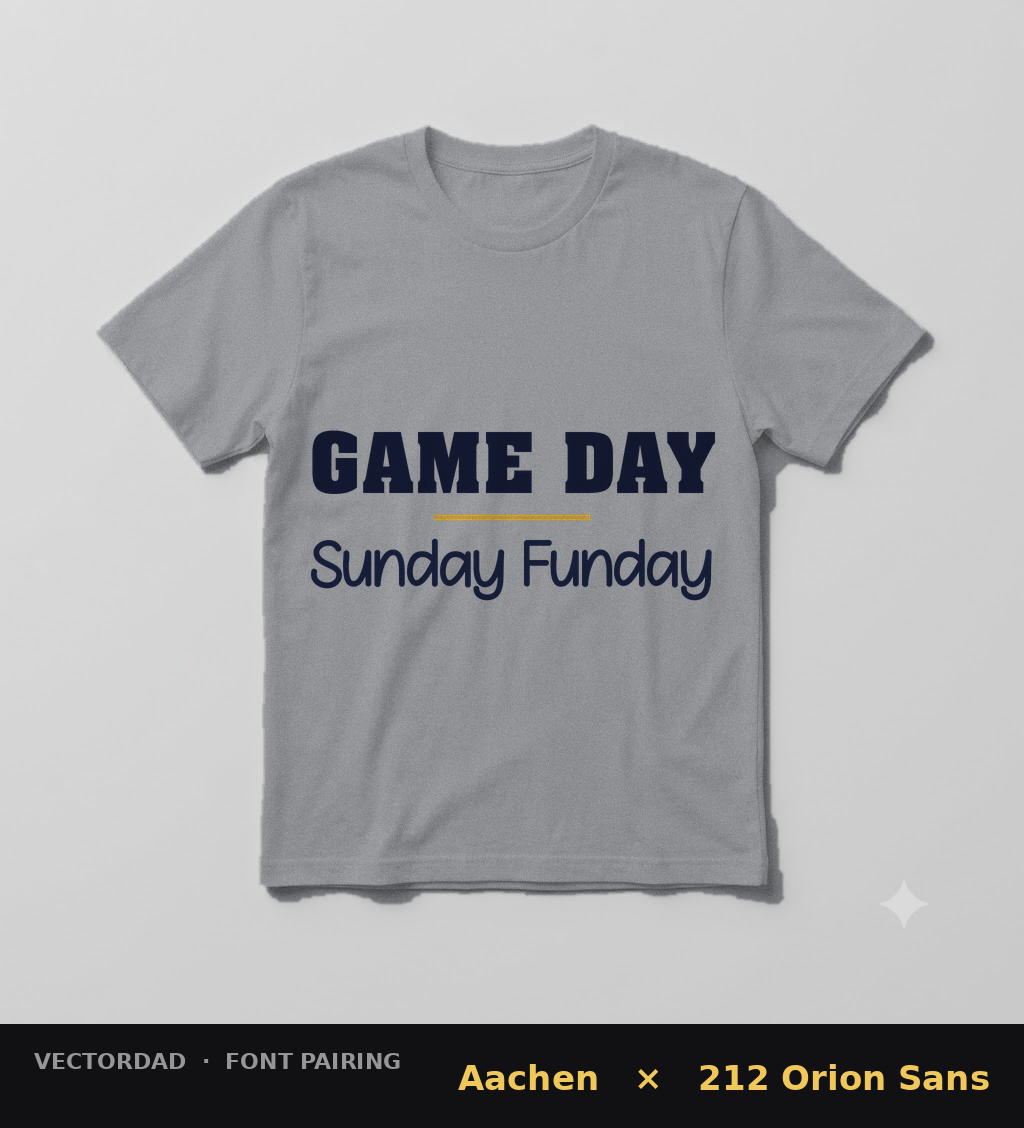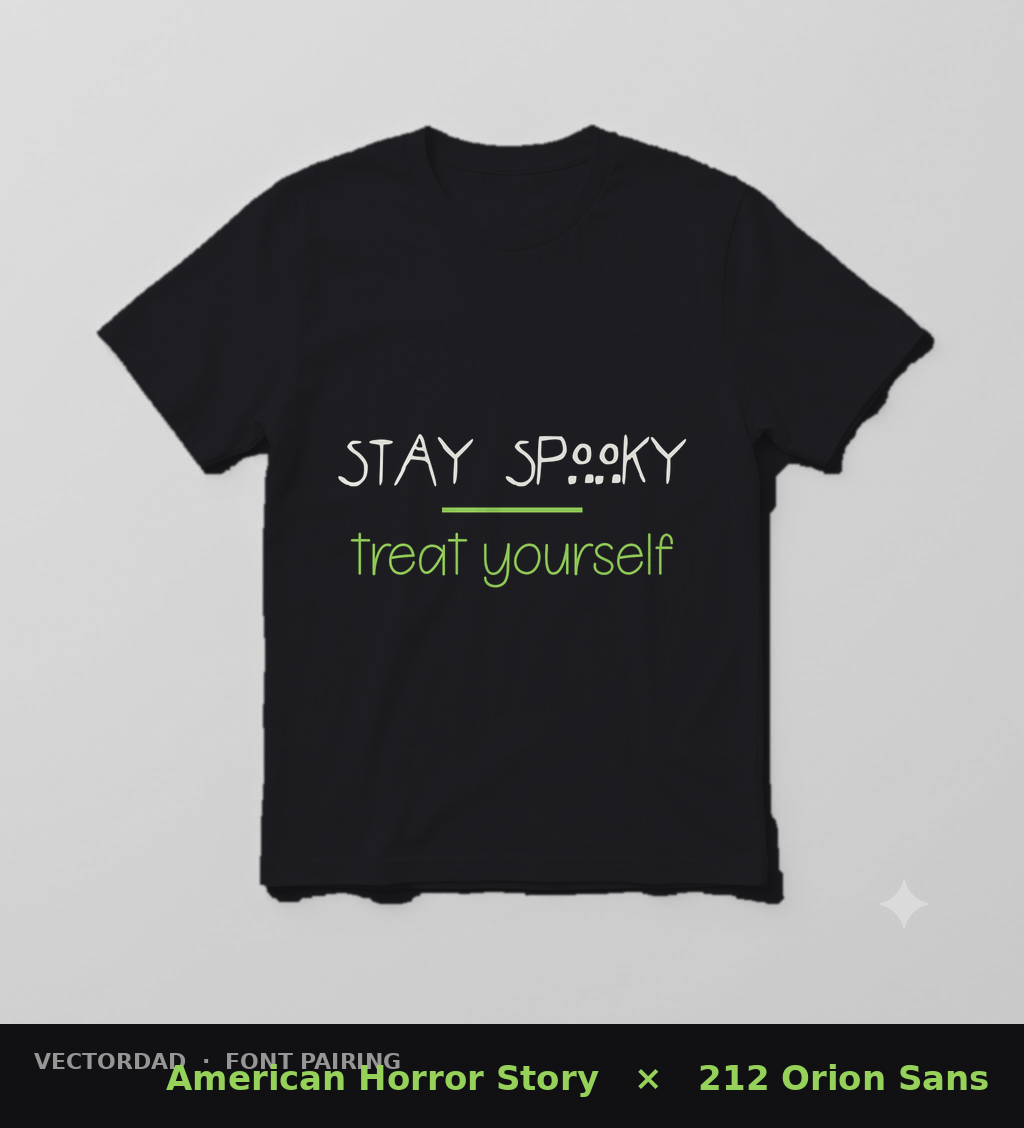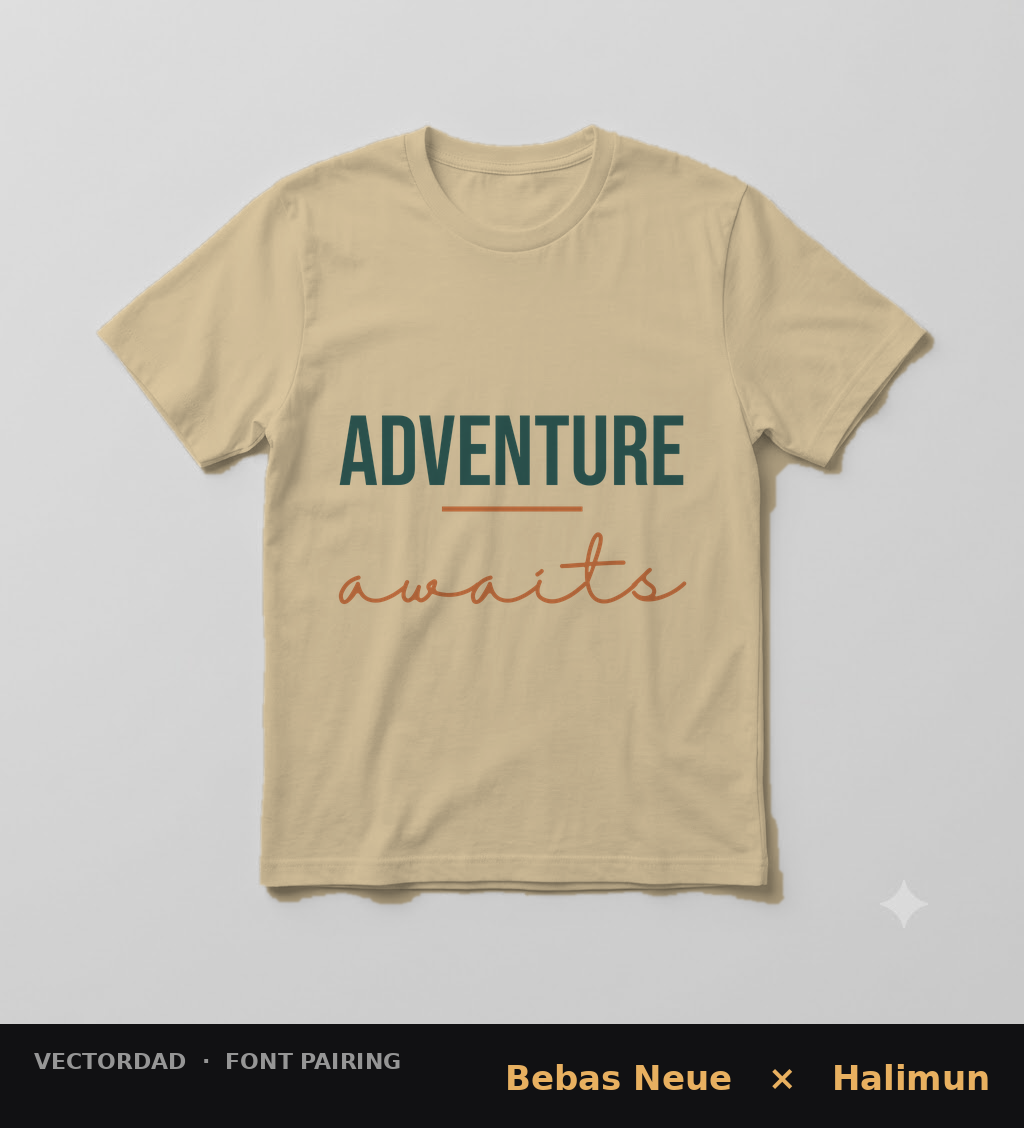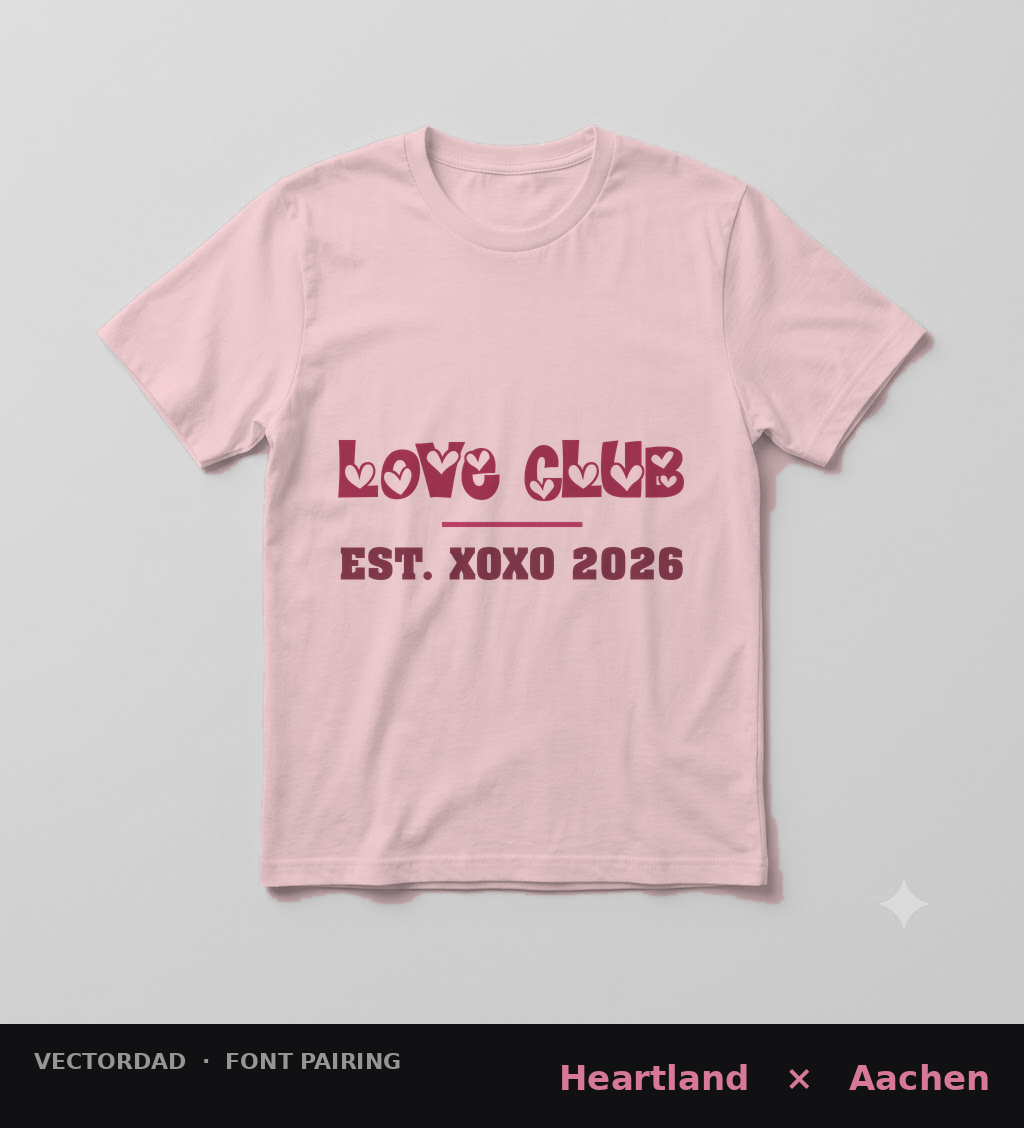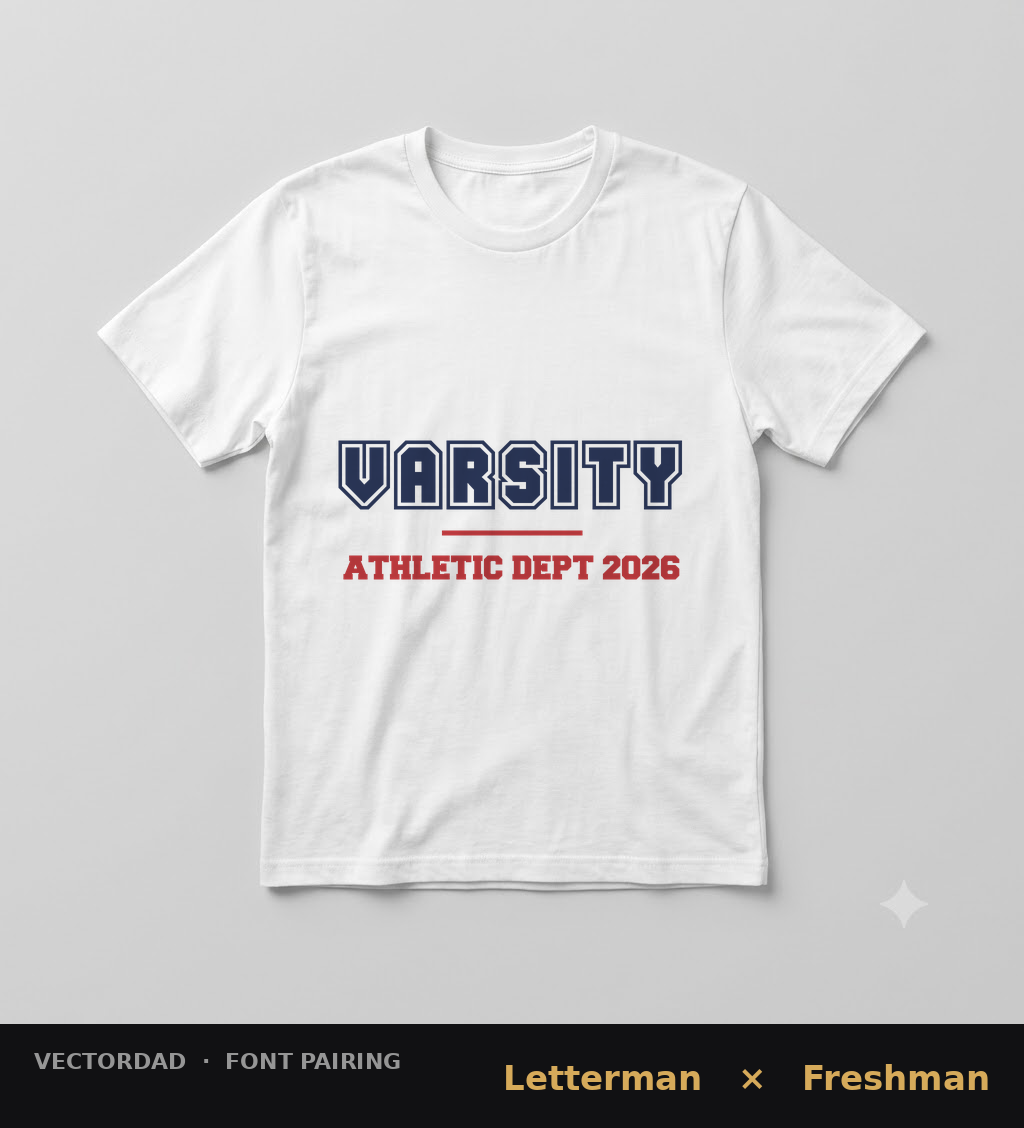
10 Font Pairings for T-Shirts That Sell featured graphic with realistic t-shirt mockups
10 Font Pairings for T-Shirts That Sell (Free Cricut Fonts)
The right shirt design lives or dies on its lettering. A clever slogan set in a clumsy font gets scrolled right past; the same words in a confident type pairing stop the thumb and sell the shirt. That is the whole game with t-shirt design – you are usually working with just two or three words, so the fonts have to do almost all of the heavy lifting.
Font pairing is simply the craft of combining two complementary typefaces so each one does a job the other cannot. On a tee that almost always means one bold display font to carry the headline and one cleaner, quieter font for the supporting line. Get that contrast right and even a plain phrase looks like it came off a boutique rack. Below are five pairings – every one built from free fonts you can download here on VectorDad – with the actual fonts rendered onto shirt mockups so you can see exactly what you are getting before you download a thing.
How to Pair Fonts for T-Shirts: 4 Quick Principles
Before the examples, here are the rules that make a two-font shirt design work. Keep these in mind and you can build your own pairings far beyond this list.
• Contrast is everything. Pair a heavy, characterful display font with a lighter, simpler one. Two bold fonts fight each other; a bold and a quiet font feel intentional.
• Stick to two. One headline font and one support font is plenty for a shirt. A third typeface almost always makes the design look busy and cheap.
• Match the mood. A spooky display font wants a calm partner, not another loud one. Let the personality font set the tone and choose a neutral companion that stays out of its way.
• Mind size and spacing. Make the headline clearly bigger than the support line, give script fonts room to breathe, and keep everything centered inside the print area.
5 Font Pairings for T-Shirts That Sell
1. Aachen + 212 Orion Sans
Aachen and 212 Orion Sans font pairing printed on a heather grey t-shirt mockup reading Game Day Sunday Funday
Why it works: Aachen is a chunky, rounded slab serif that reads loud and friendly – perfect for a punchy headline. 212 Orion Sans is a light, casual hand-style sans that cools things down underneath, so the headline gets all the attention while the supporting line stays easy to read.
Use it for: game-day shirts, family-vacation tees, and laid-back weekend slogans where you want bold but not aggressive.
2. Letterman + Freshman
Letterman and Freshman varsity font pairing printed on a white t-shirt mockup reading Varsity Athletic Dept 2026
Why it works: A classic athletic stack. Letterman is a collegiate, outlined varsity face that instantly says team and tradition, while Freshman is a solid old-school block that makes a great second line for a year, a department, or a team name. Same era, two different weights – that is what keeps it from looking flat.
Use it for: team shirts, school-spirit wear, sports-club merch, and any “est. 20XX” design.
3. American Horror Story + 212 Orion Sans
American Horror Story and 212 Orion Sans font pairing printed on a black t-shirt mockup reading Stay Spooky treat yourself
Why it works: The American Horror Story font is an unsettling, hand-drawn display that carries a ton of personality – which is exactly why it needs a calm partner. Bringing 212 Orion Sans back as the quiet support line gives the eye somewhere to rest and keeps the design from tipping into a cluttered mess.
Use it for: Halloween drops, spooky-season shirts, and horror-fan merch.
4. Heartland + Aachen
Heartland and Aachen font pairing printed on a blush pink t-shirt mockup reading Love Club Est XOXO 2026
Why it works: Heartland is a playful display font with heart-shaped details baked into the letters – adorable, but a little chaotic on its own. Pairing it with the steady, structured Aachen as a support line grounds the whole design and makes the cute headline feel like a deliberate choice rather than an accident.
Use it for: Valentine’s shirts, “love club” and friend-group tees, and sweet couple designs.
5. Bebas Neue + Halimun
Bebas Neue and Halimun font pairing printed on a sand t-shirt mockup reading Adventure awaits
Why it works: The most modern combo here. Bebas Neue is a tall, narrow, all-caps sans that feels clean and premium, and Halimun is a flowing signature script that adds a handmade, personal accent. Condensed caps plus a loose script is the pairing you see on boutique apparel everywhere, and it costs you nothing here.
Use it for: travel and adventure tees, minimalist quote shirts, and boutique-style merch.
5 More T-Shirt Font Pairings to Try
Once you understand the bold-plus-quiet formula, the same eight fonts remix into plenty more shirt-ready combinations:
Make It in Seconds With VectorDad’s Free Font Tools
You do not need expensive design software to use any of these pairings. Drop your words into the Vector Quotes Maker to lay out a two-line shirt design, or reach for a themed generator that matches the vibe: the Varsity Font Generator and College Font Generator for sporty tees, the Sports Font Generator for jerseys, the Gothic Font Generator for spooky drops, and the Retro Font Generator for vintage looks. When you are ready to pick more typefaces, browse the full free font library – including the commercial-use and serif collections.
Designing paper goods too? Our companion guide to font pairings for wedding invitations applies the same bold-plus-quiet formula to save-the-dates and invitation suites. Building a brand identity? Our guide to font pairings for logos and branding applies the same bold-plus-quiet formula to wordmarks and taglines. Making home decor too? Our guide to farmhouse font pairings brings the same approach to rustic signs and plaques. Planning something spooky? Our guide to spooky Halloween font pairings brings the same idea to signs, posters and party printables. And when the holidays roll around, dress your designs in our festive Christmas font pairings. Teaching or planning your year? Our guide to classroom & planner font pairings brings the same friendly-plus-clean approach to welcome posters, name tags and planner covers. Personalising a gift? Our guide to monogram font pairings applies the same character-plus-calm formula to decorative initials and names.
Putting your lettering on a wall? Our companion guide to bold font pairings for posters and flyers applies the same character-plus-calm formula to event posters, sale flyers and signage.
Font Pairing FAQ
What font pairings sell best on t-shirts?
The best-selling pairings almost always combine one bold display font with one clean, simple font. The contrast makes the headline pop while keeping the design readable from across a room – the two things a shirt has to do to sell.
How many fonts should a t-shirt design use?
Two is the sweet spot: one headline font and one supporting font. You can occasionally add a tiny third element like a date or a small tagline, but more than that usually makes the design look cluttered.
Are these fonts free for commercial use?
It varies by font, so always check the license on each product page before you sell. On this list, Aachen, Freshman, Heartland, and Bebas Neue (public domain) are cleared for commercial work, while 212 Orion Sans, Letterman, and Halimun are listed for personal use. When in doubt, confirm on the font’s download page.
What size and format should t-shirt fonts be?
Design at a large size – print areas are typically around 11–12 inches wide – and export your lettering as an SVG or high-resolution PNG so the edges stay crisp on fabric. Vector formats like SVG are ideal for Cricut and Silhouette cutting.
Can I pair more than two fonts?
You can, but be careful. If you go to three, make sure each font has a clearly different job and weight so they do not compete. For most shirts, sticking to two will give you a cleaner, more professional result.
Try one of these five pairings on your next design, then remix the same fonts into your own combinations. With the right two typefaces – and the rendered mockups above to guide you – even a two-word slogan can look like a shirt worth buying.